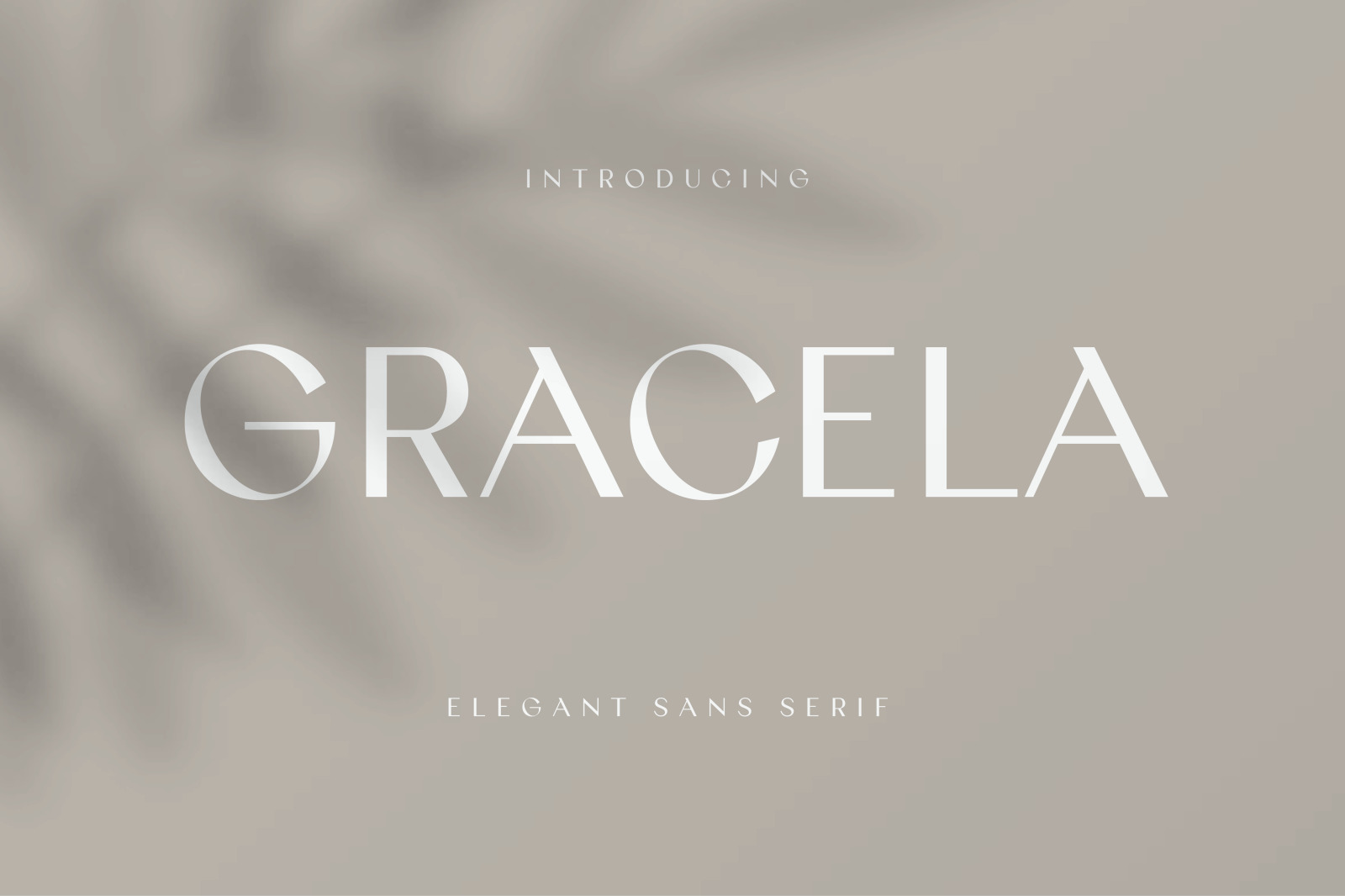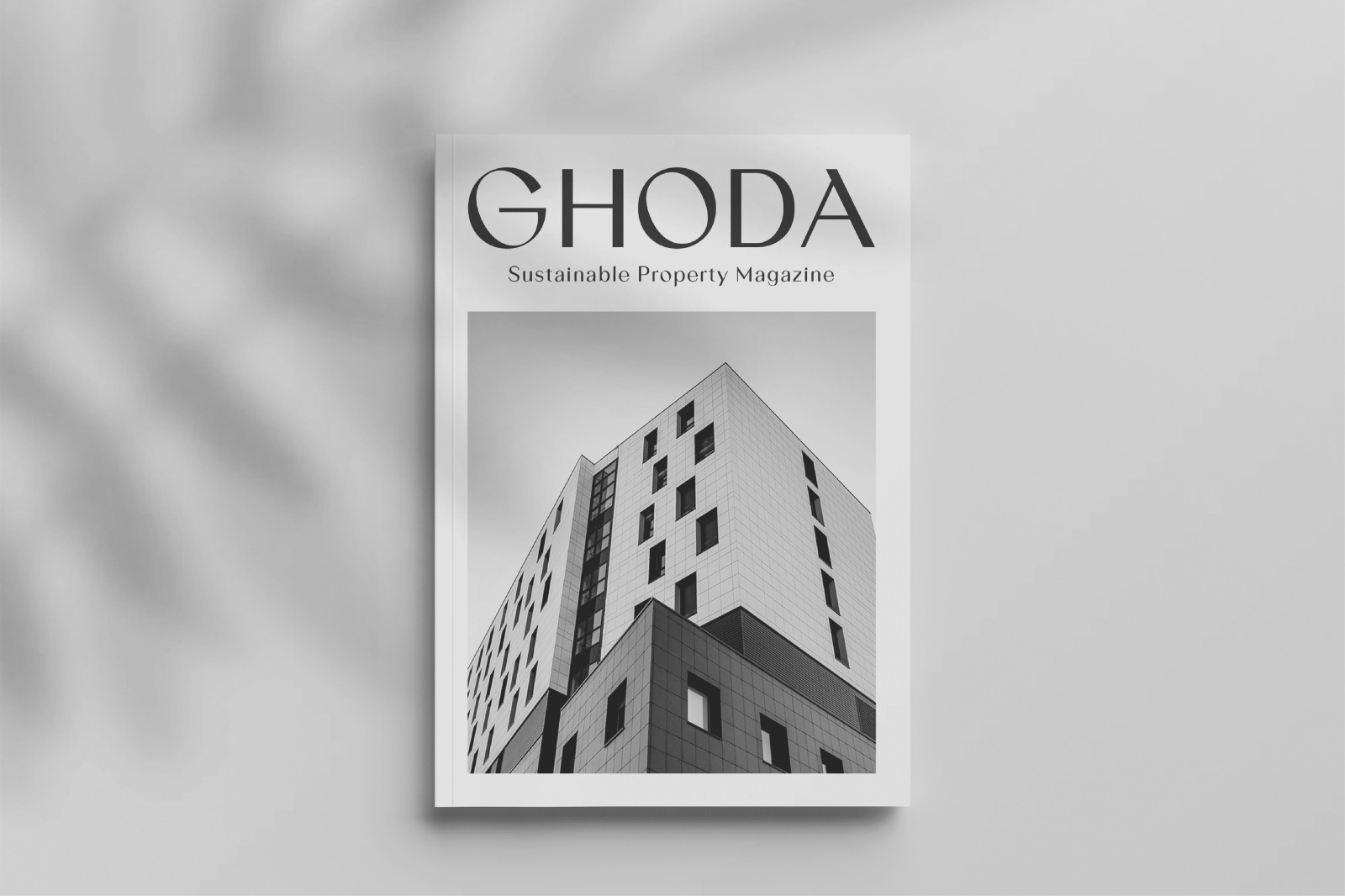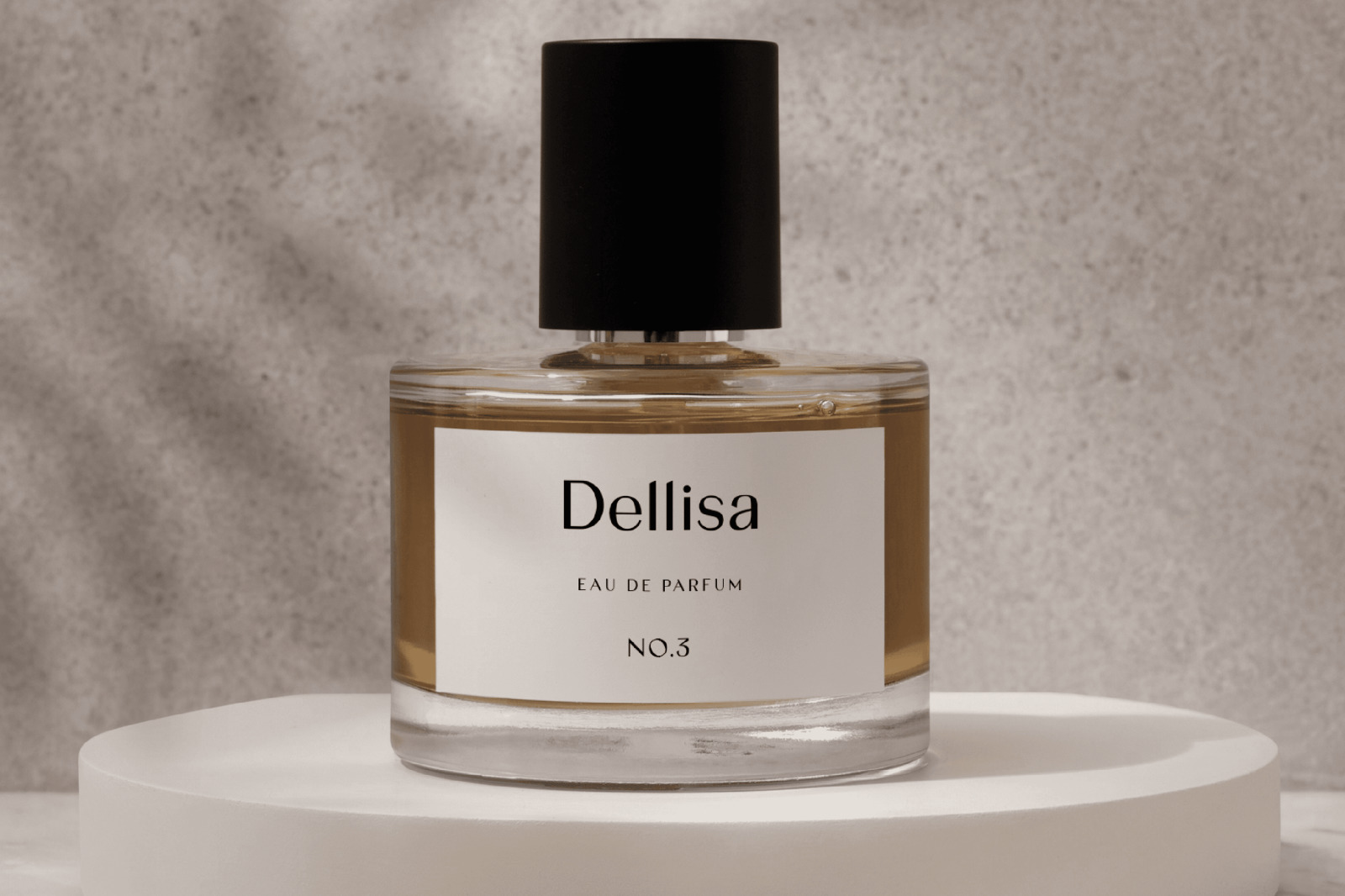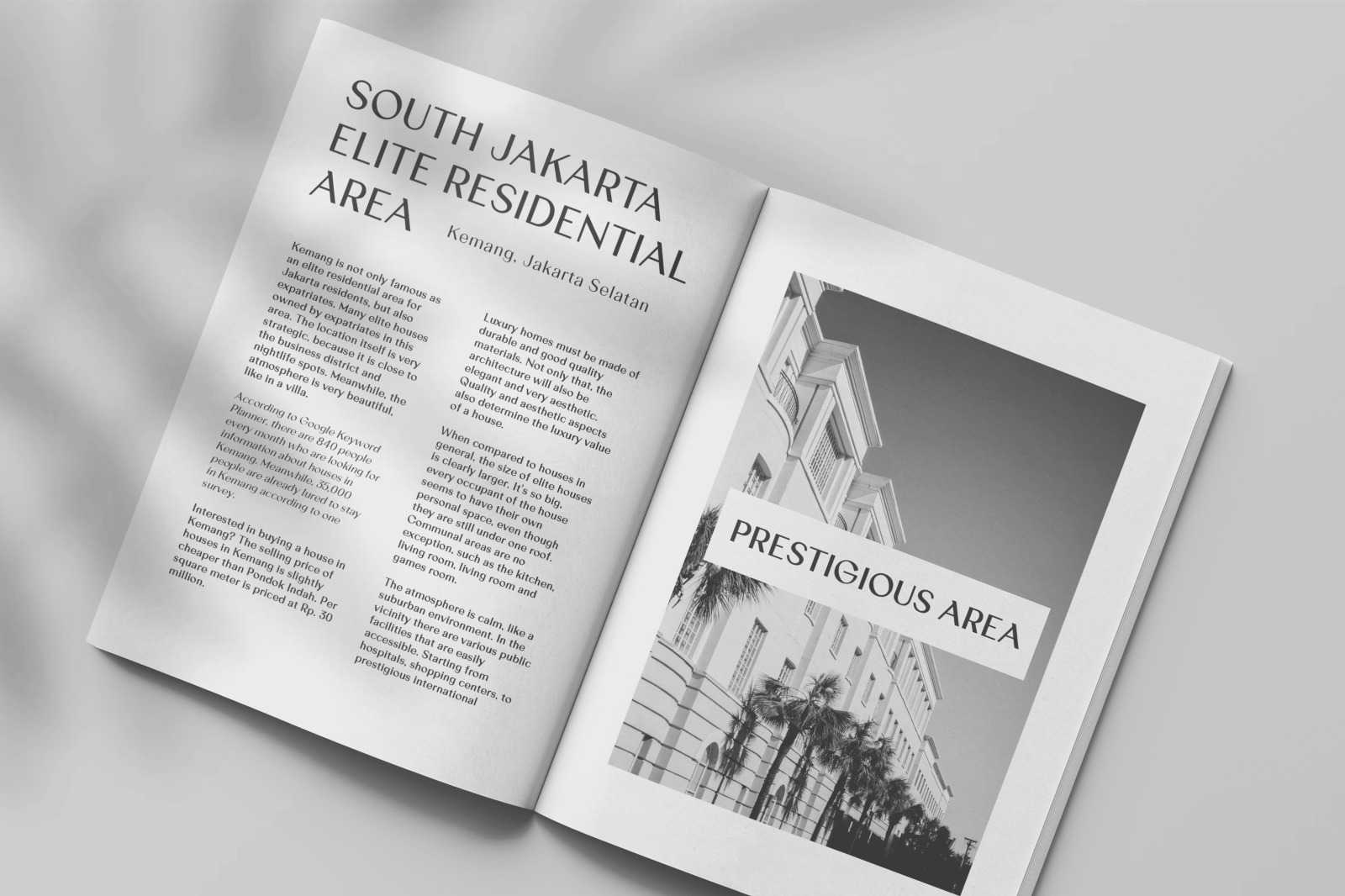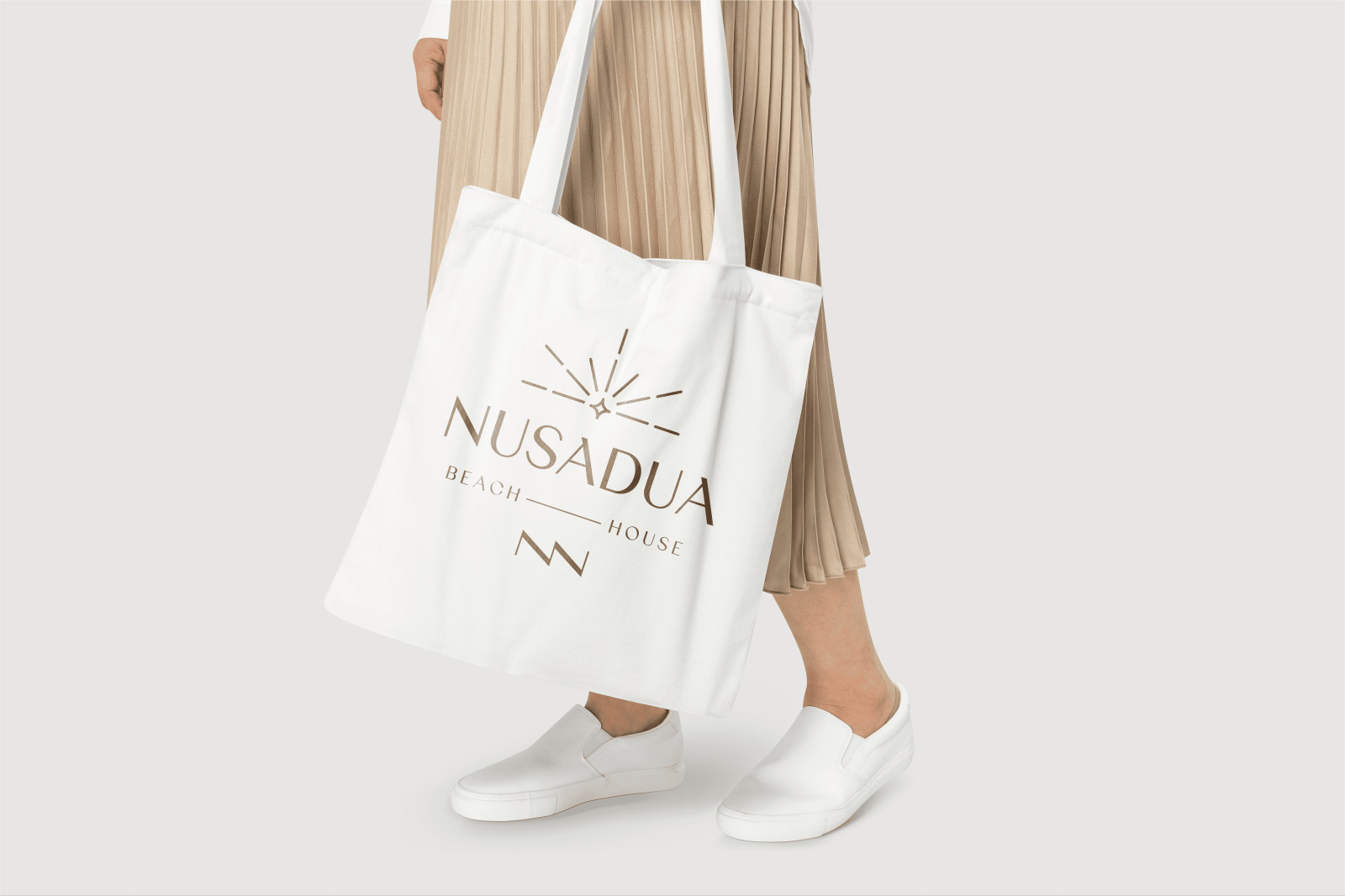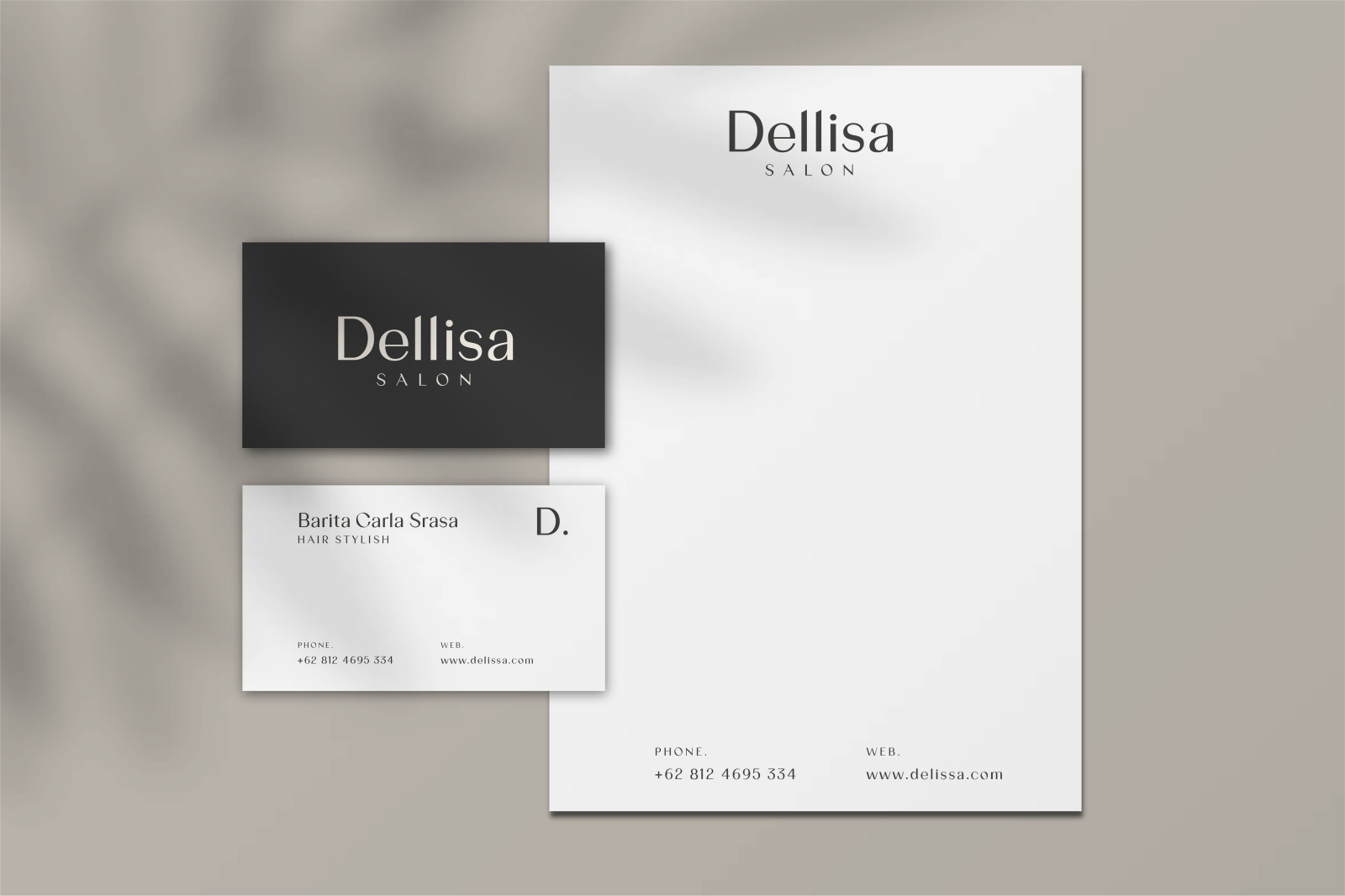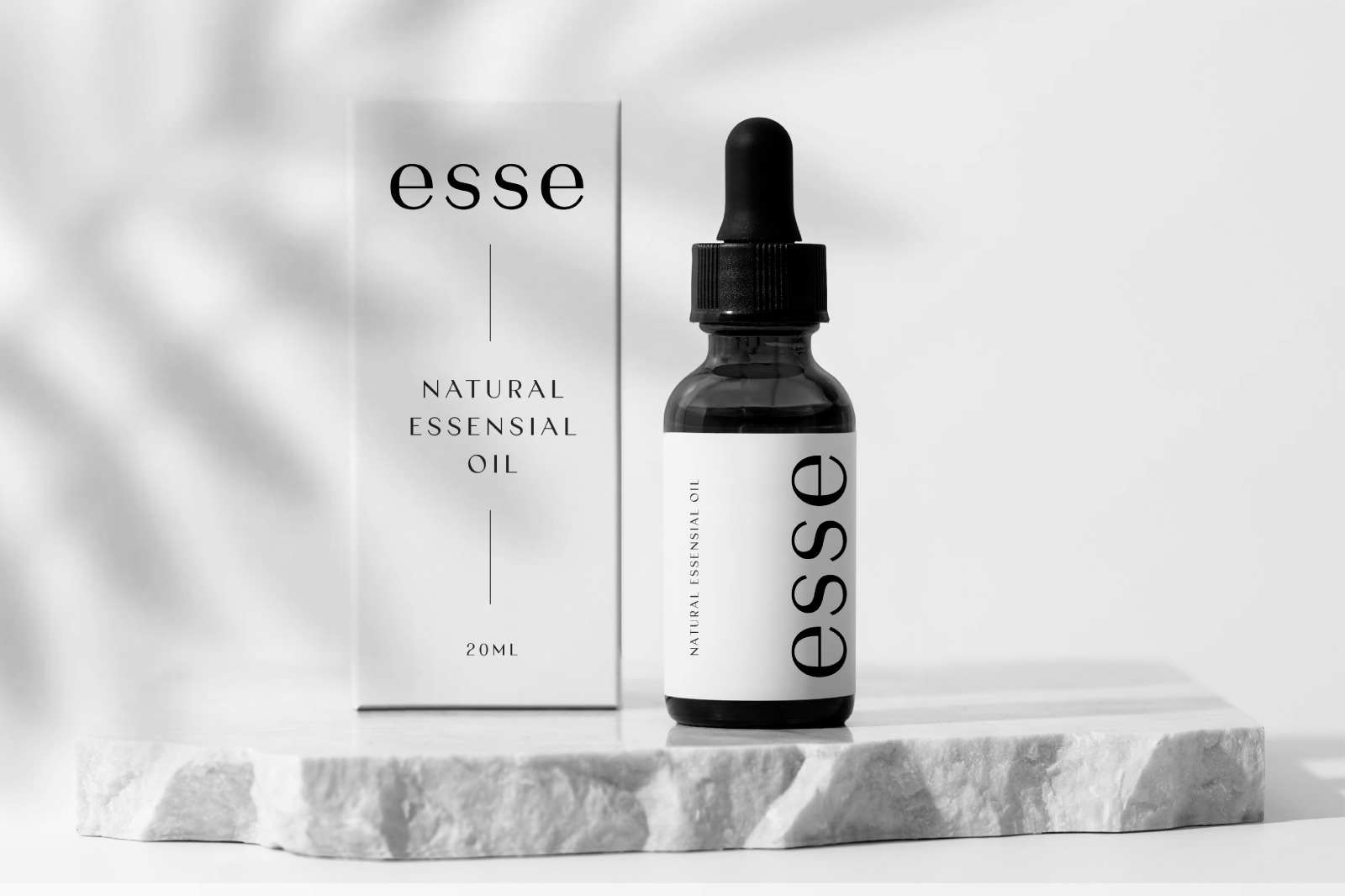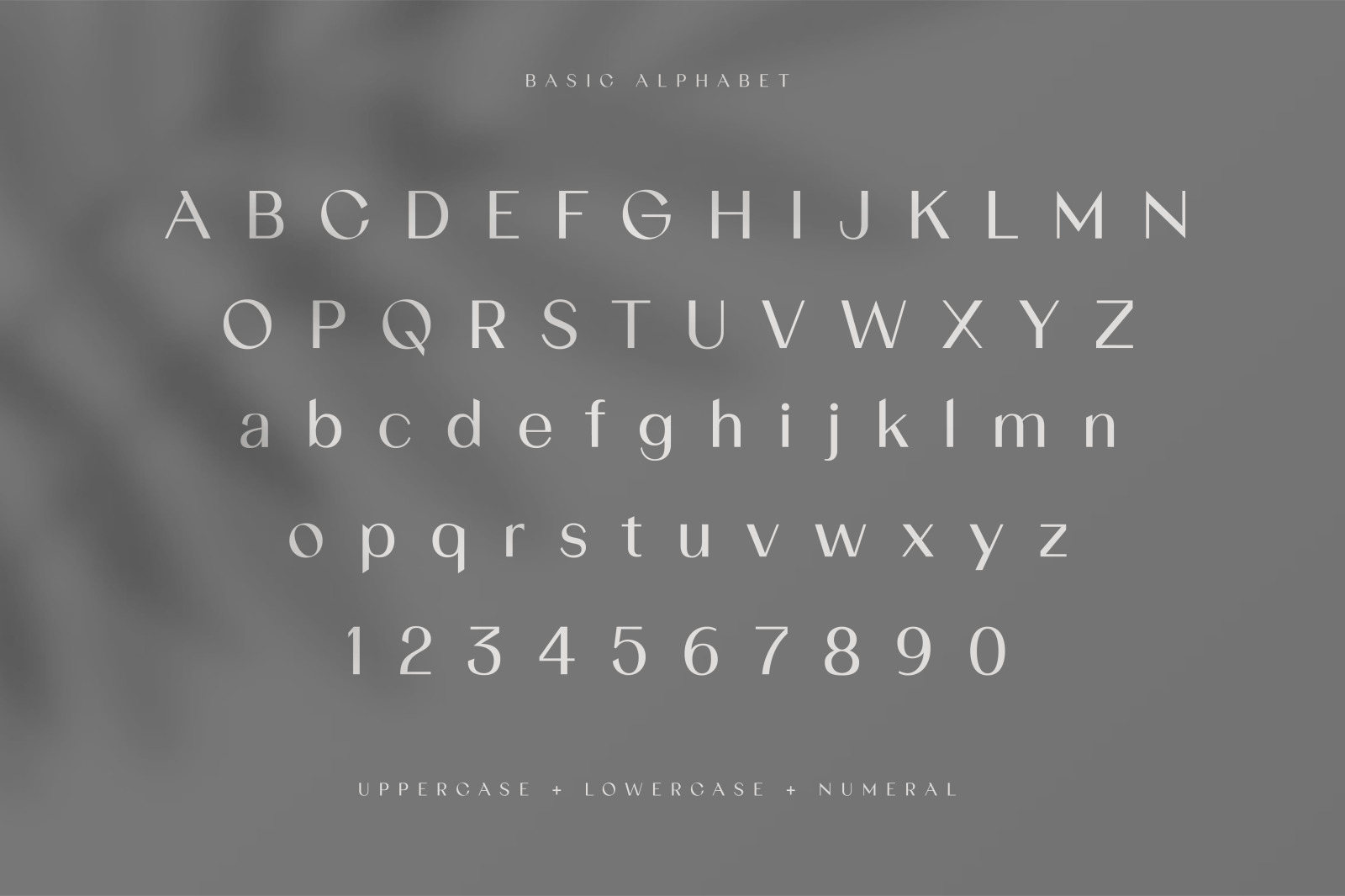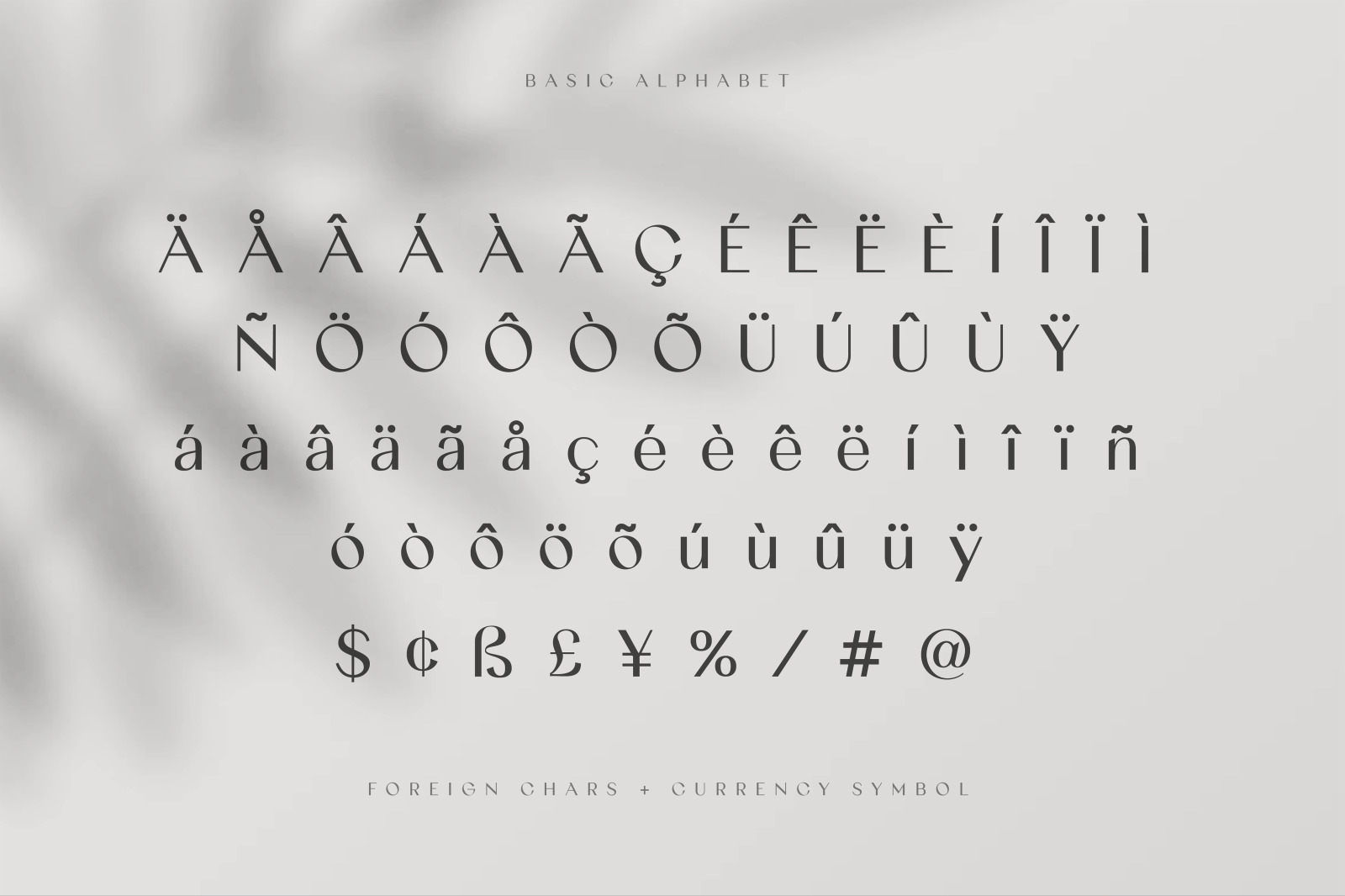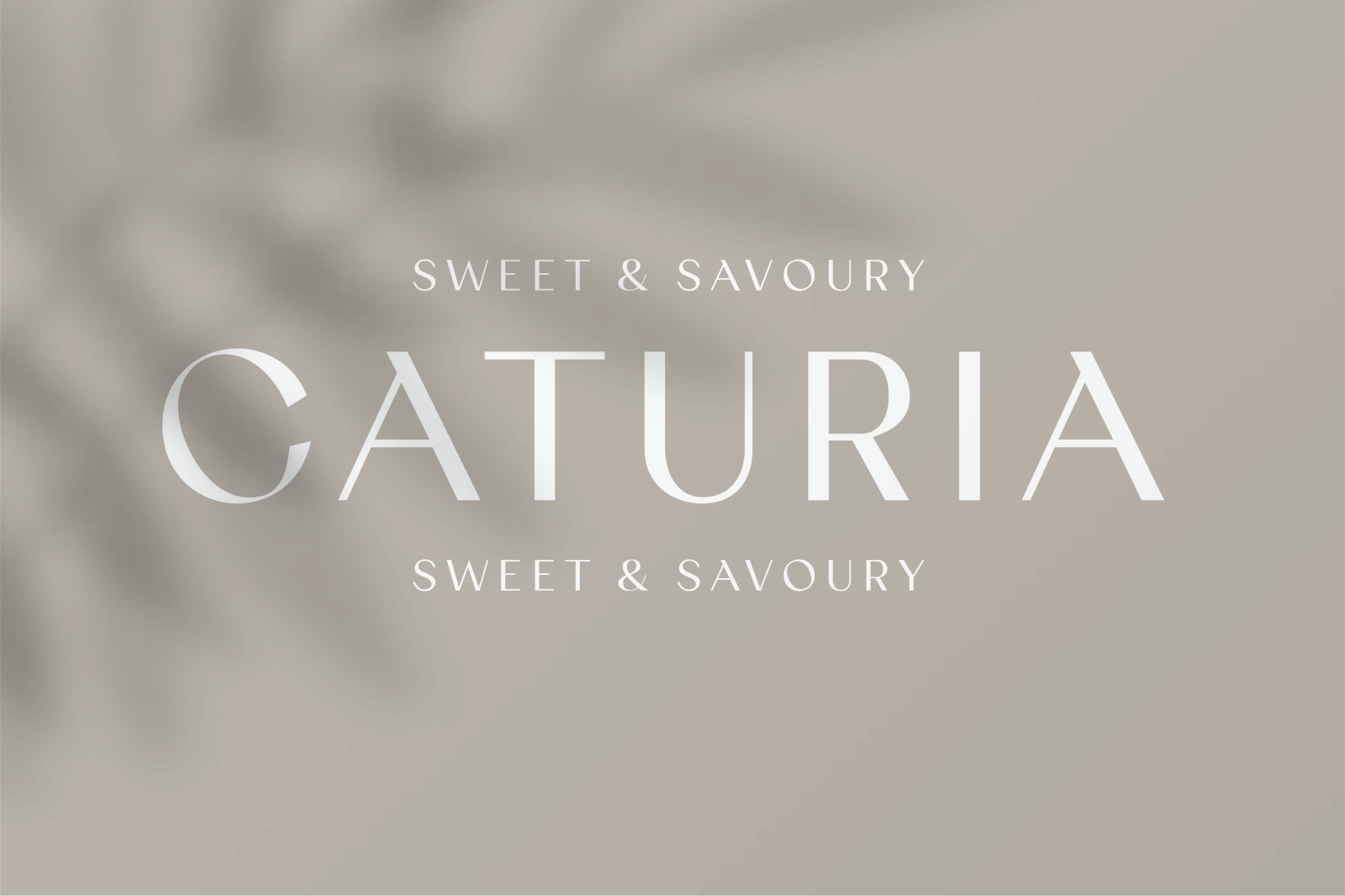
Gracela Sans Serif Elegant Typeface
Introducing the Gracella font in the Elegant Sans Serif style. Versatile font that can be used for both formal and casual. Gracela is a regular style font, not too thin nor too thick, very suitable for the needs of logos, branding, websites,
Supports all languages in the world (37)
Versatile Single Font.
One font for all needs.